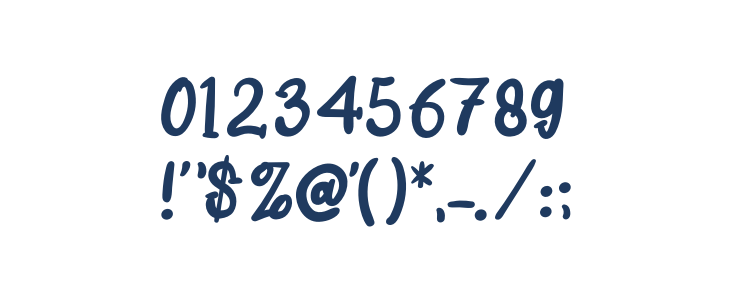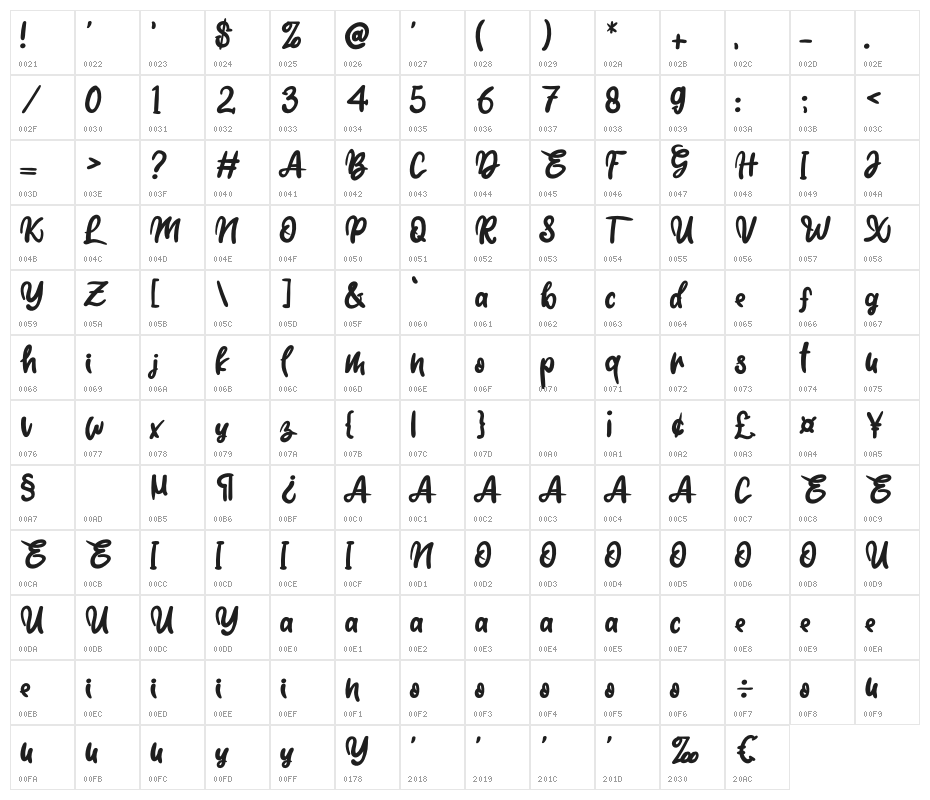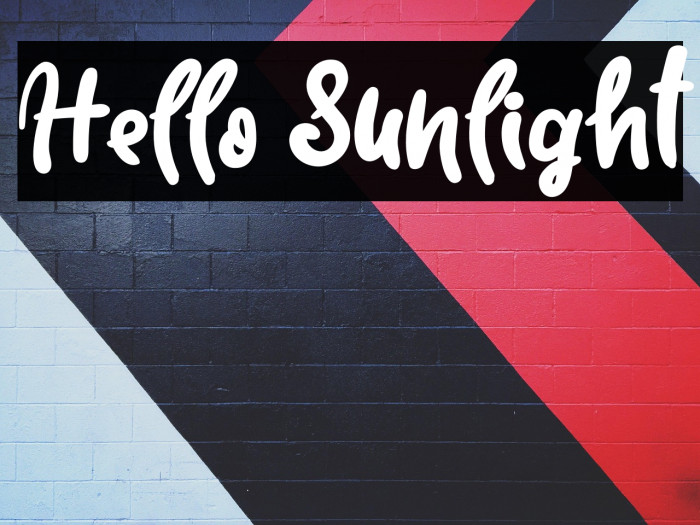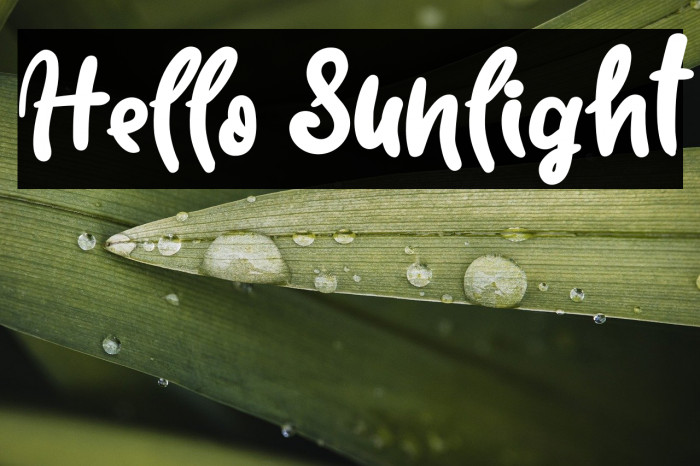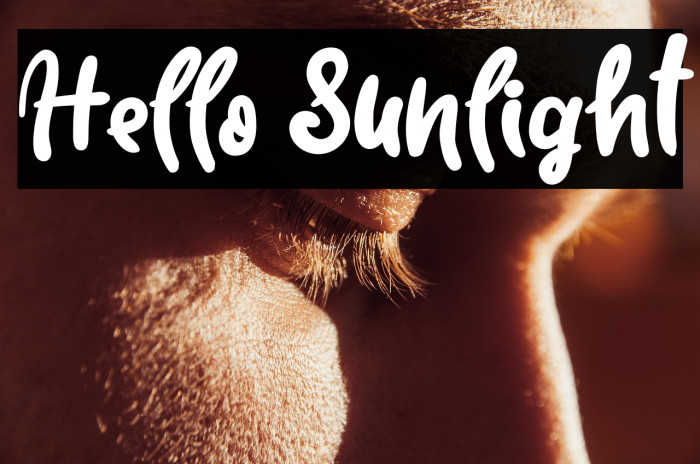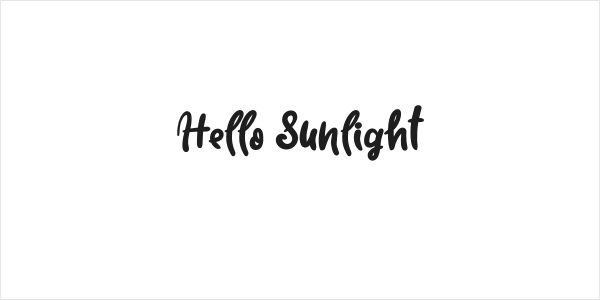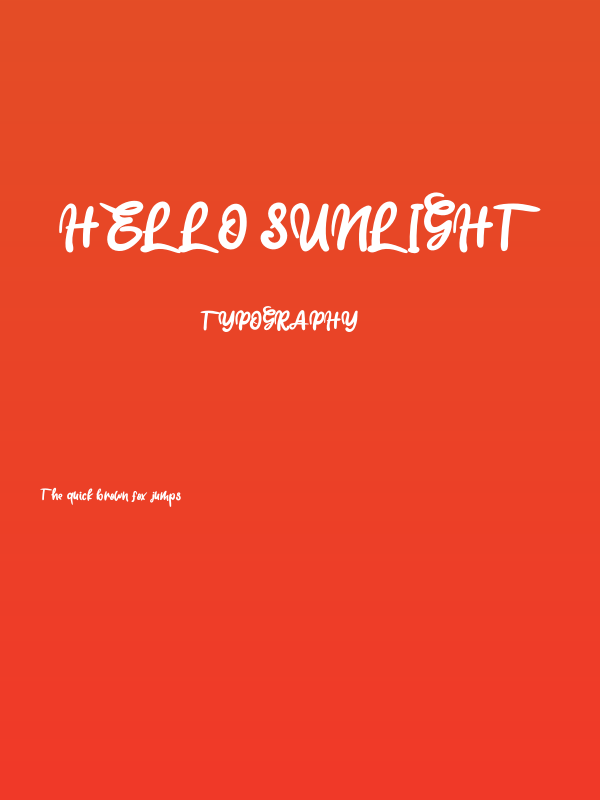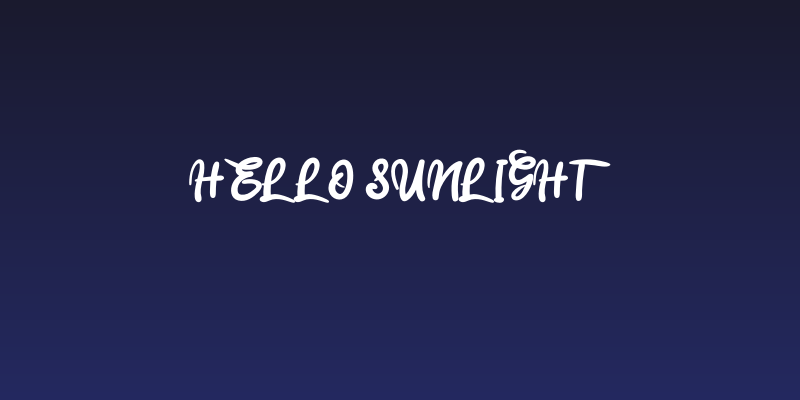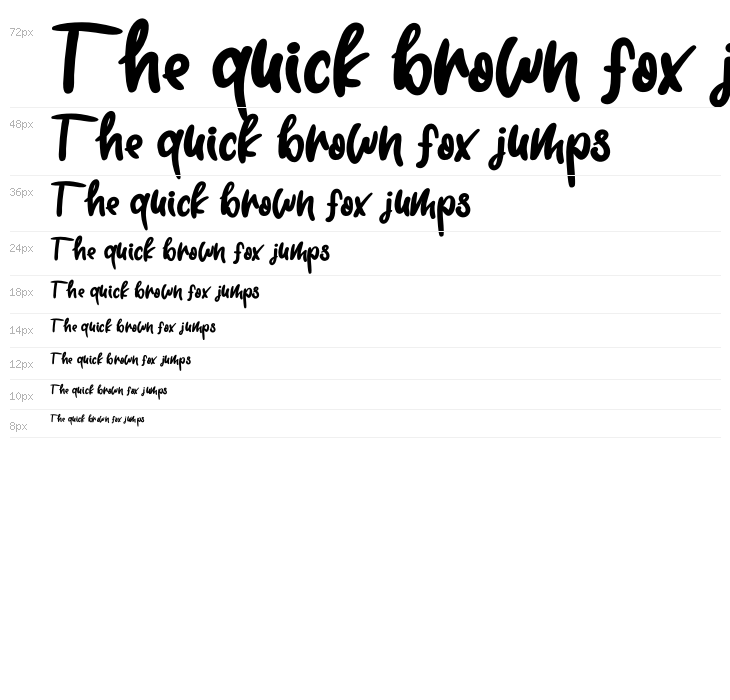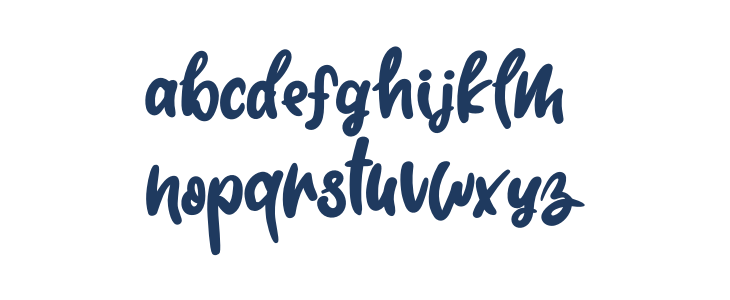
Hello Sunlight Font
Hello Sunlight Description
This font features a bold, expressive script style with a playful and energetic feel. The characters are interconnected, creating a fluid and dynamic appearance. The strokes are thick and consistent, providing a strong visual impact. The uppercase letters are slightly larger than the lowercase, maintaining a harmonious balance. The numbers and special characters follow the same lively style, ensuring uniformity across all elements. This font's design is ideal for capturing attention and conveying a sense of creativity and enthusiasm.
| Use Case | Logos, Headlines, Posters |
| Proposed Projects | Ideal for branding, posters, greeting cards, and social media graphics where a lively and engaging look is desired. |